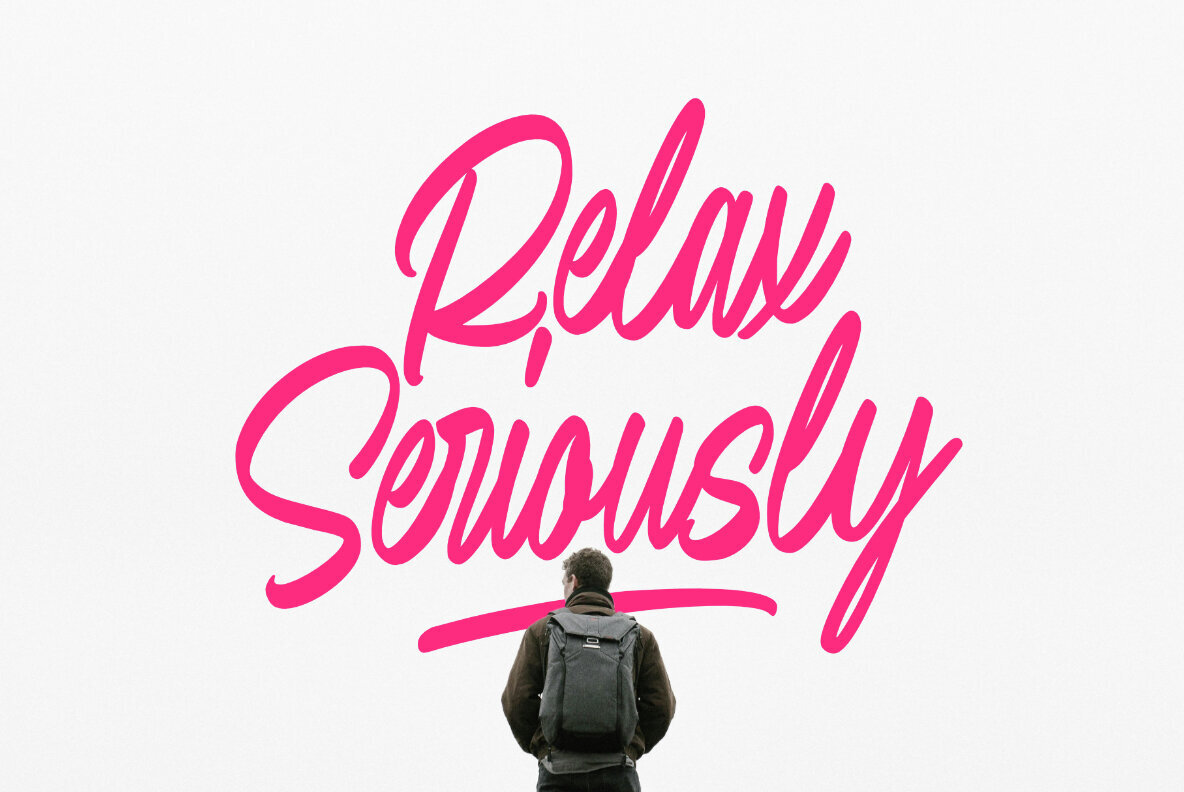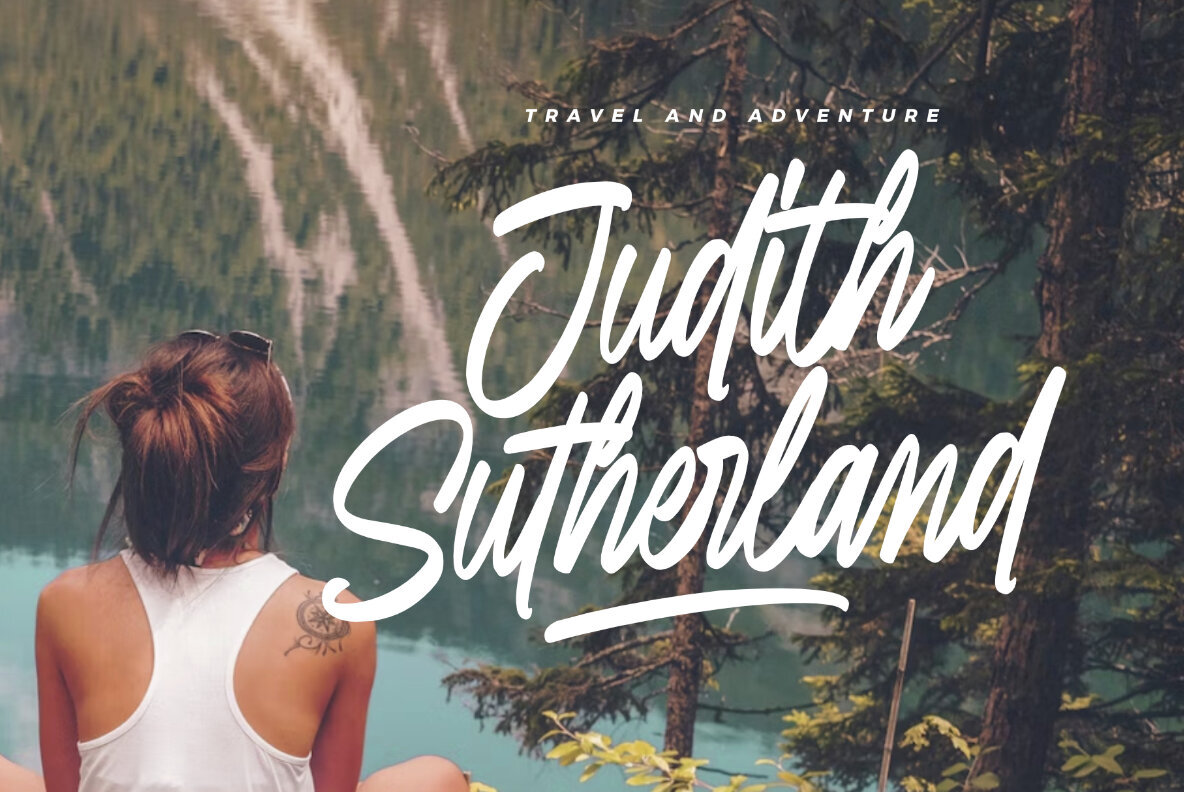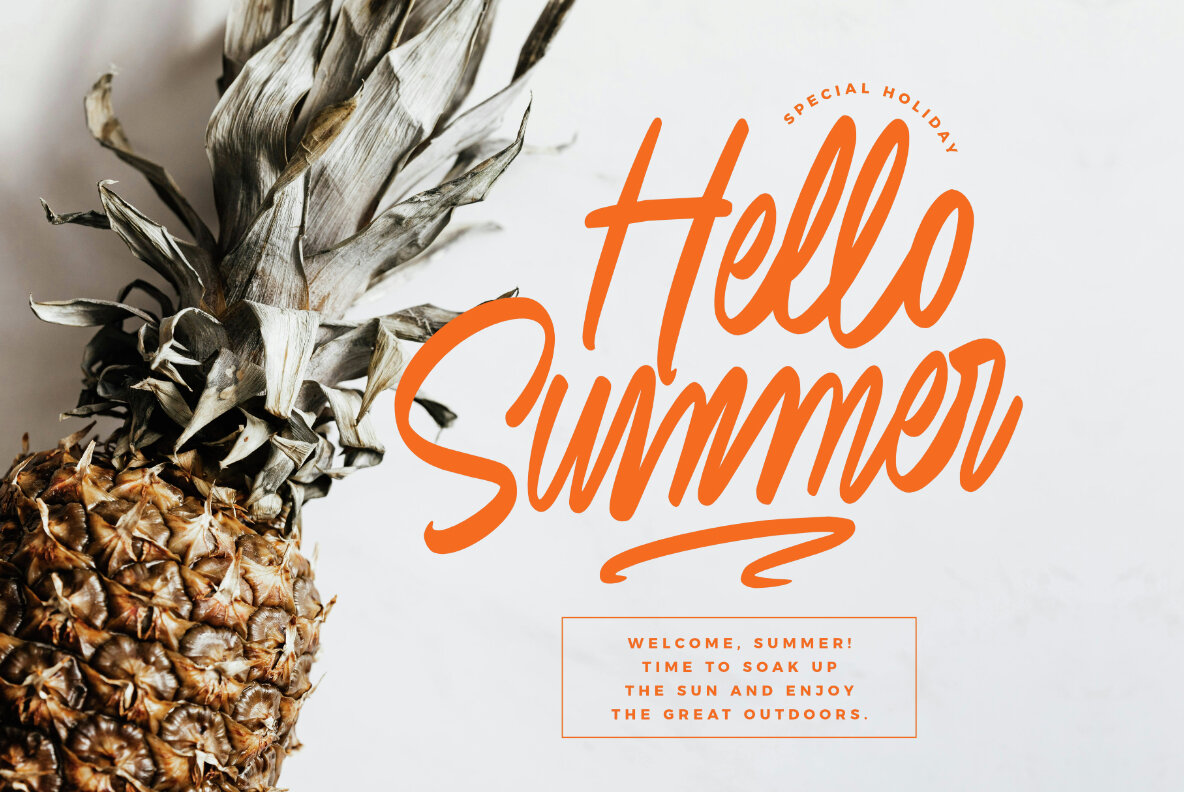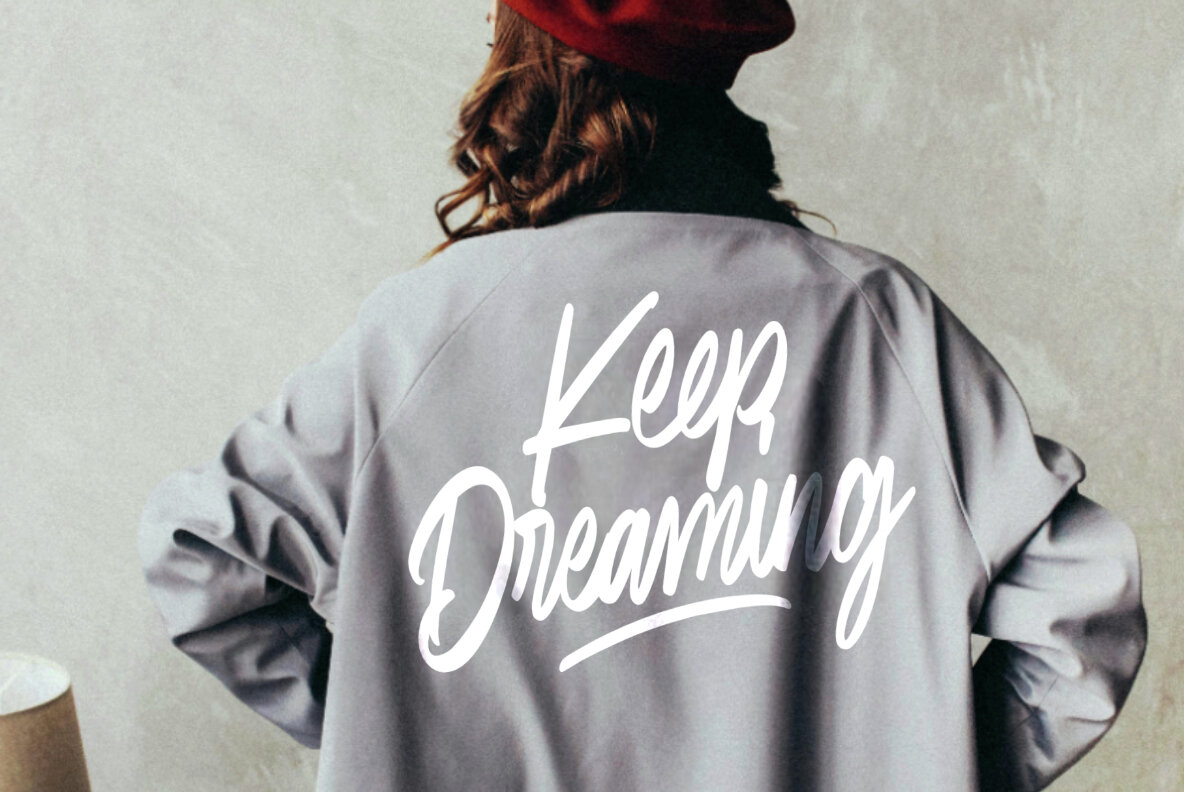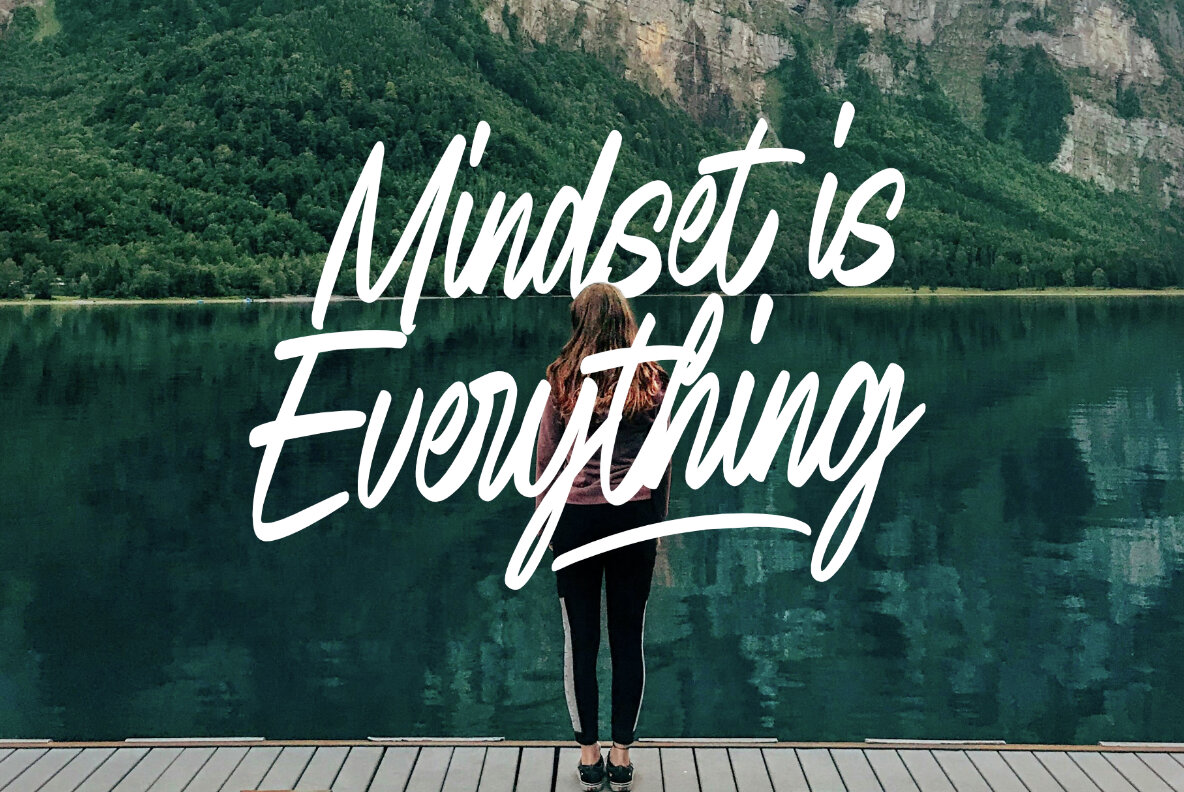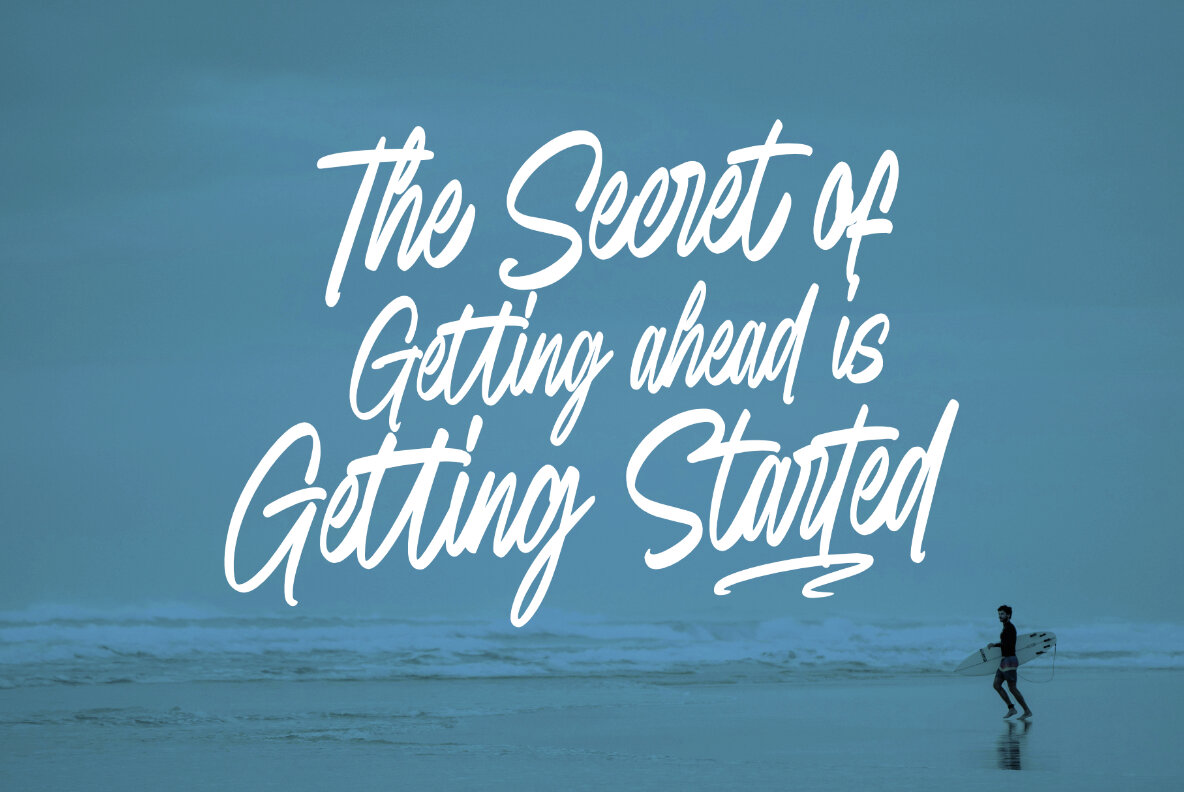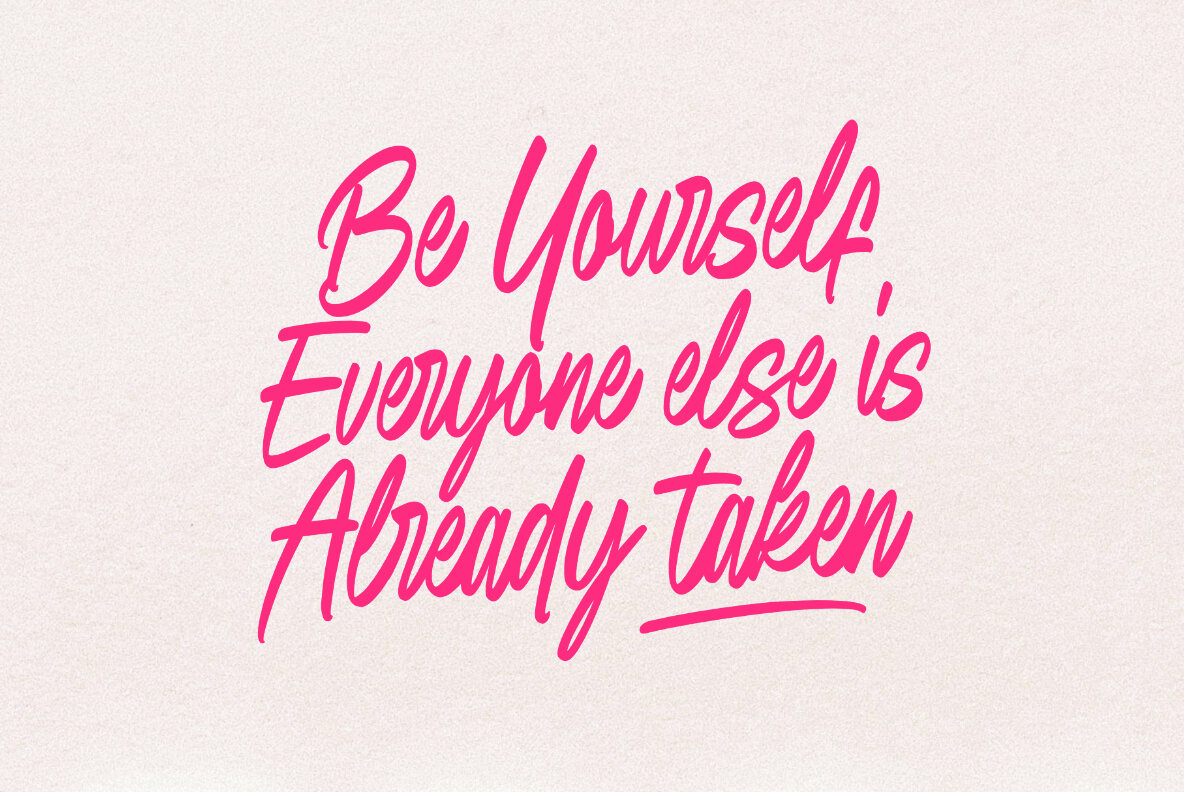
Saturday Delicate Font
Saturday Delicate Regular
Saturday Delicate is a stylish handwritten script font that exudes elegance and charm. Its smooth, flowing strokes and meticulously crafted letterforms capture the essence of refined handwriting. This font is perfect for projects that require a blend of beauty and delicacy.
Ideal for branding, invitations, and digital design, Saturday Delicate adds a sophisticated touch to any work. Its stylish and elegant look enhances visual appeal, making it a versatile choice for any creative endeavor.